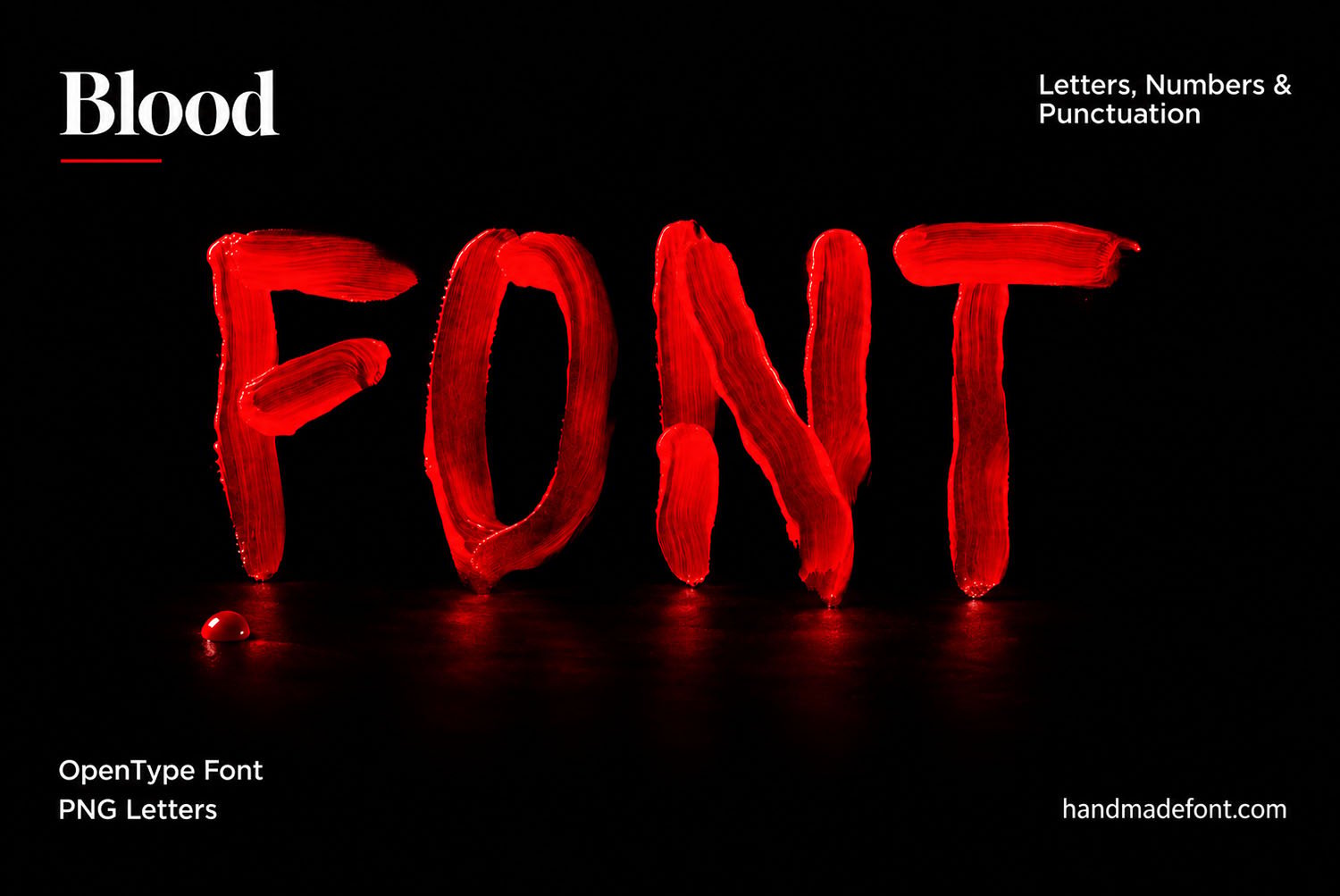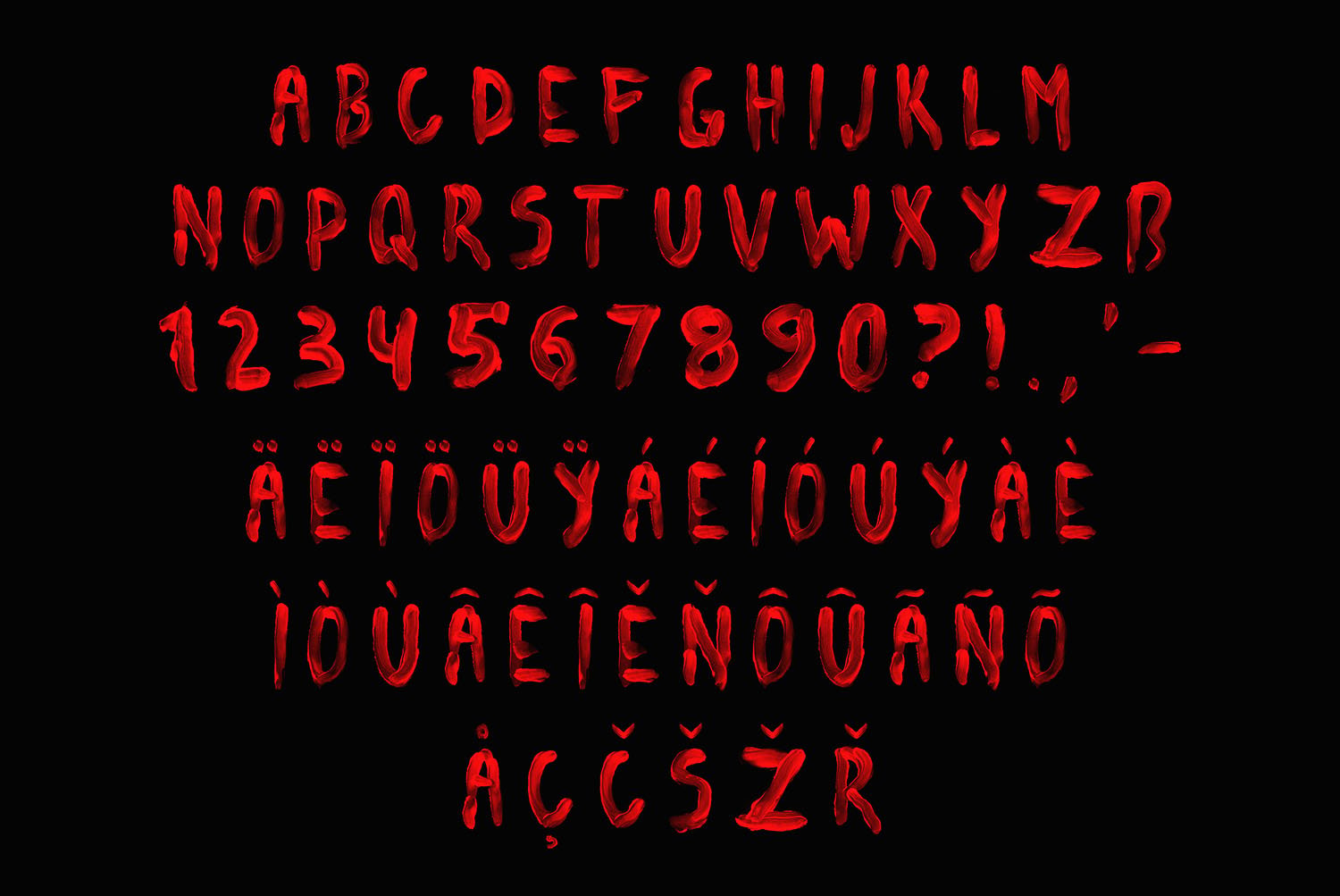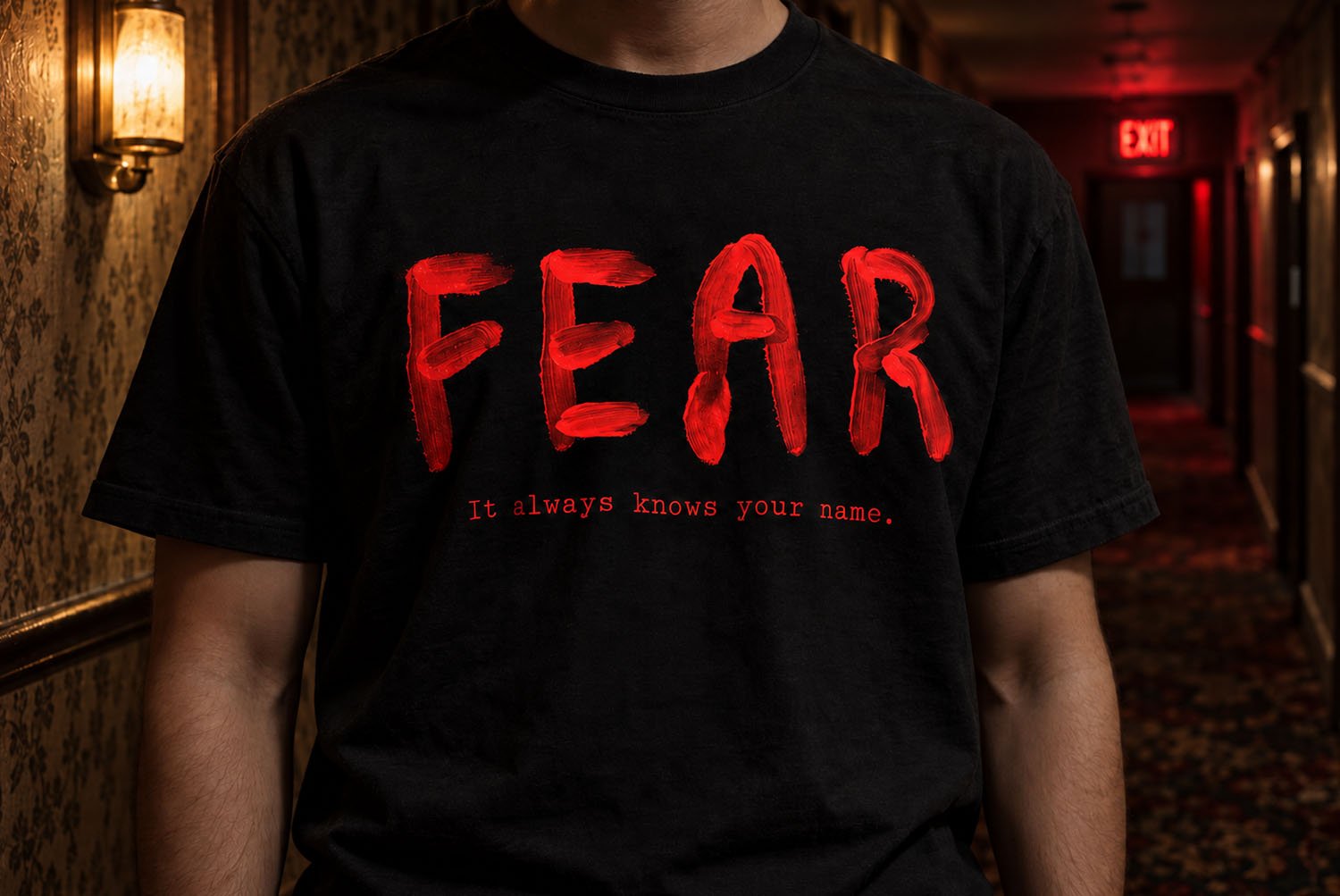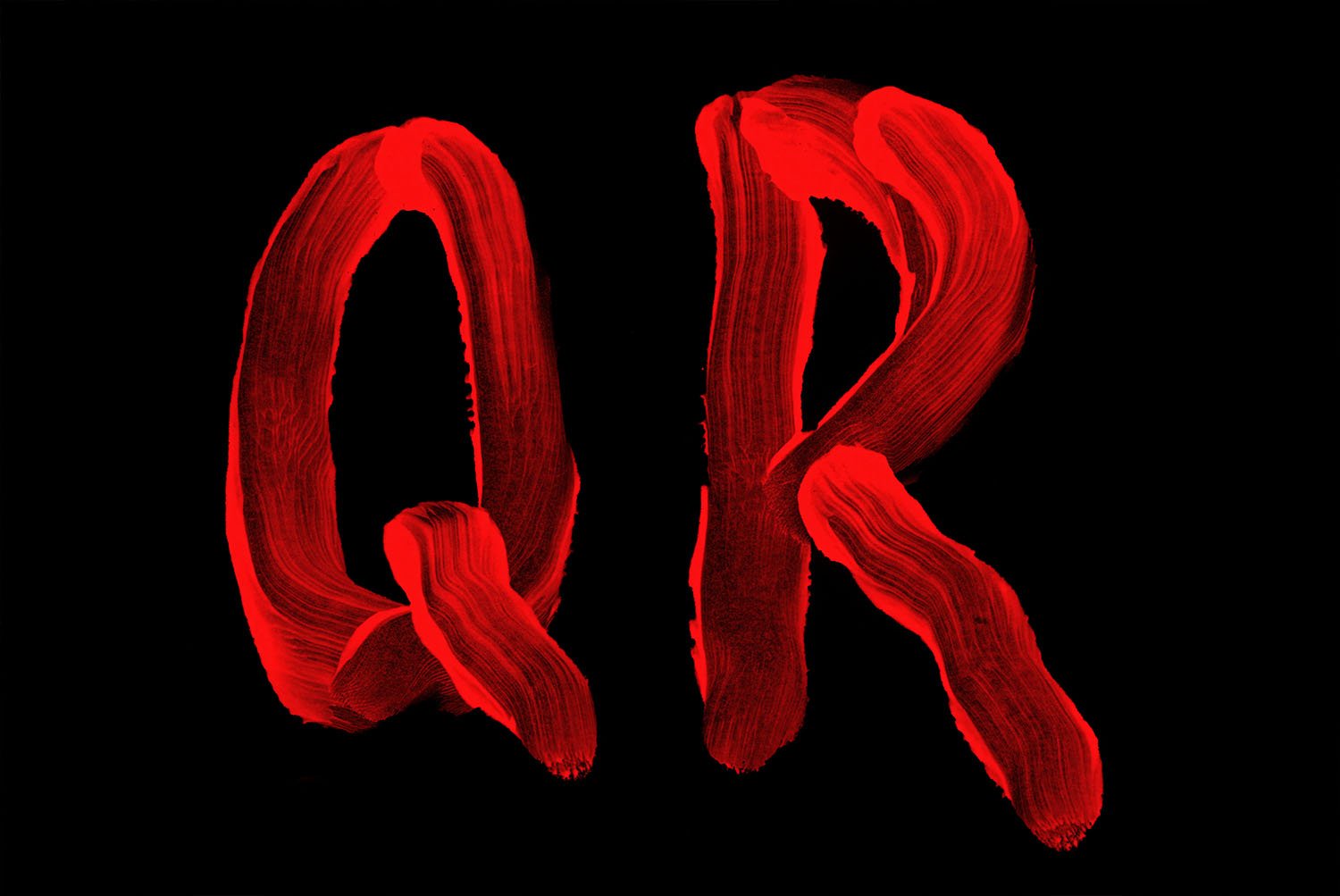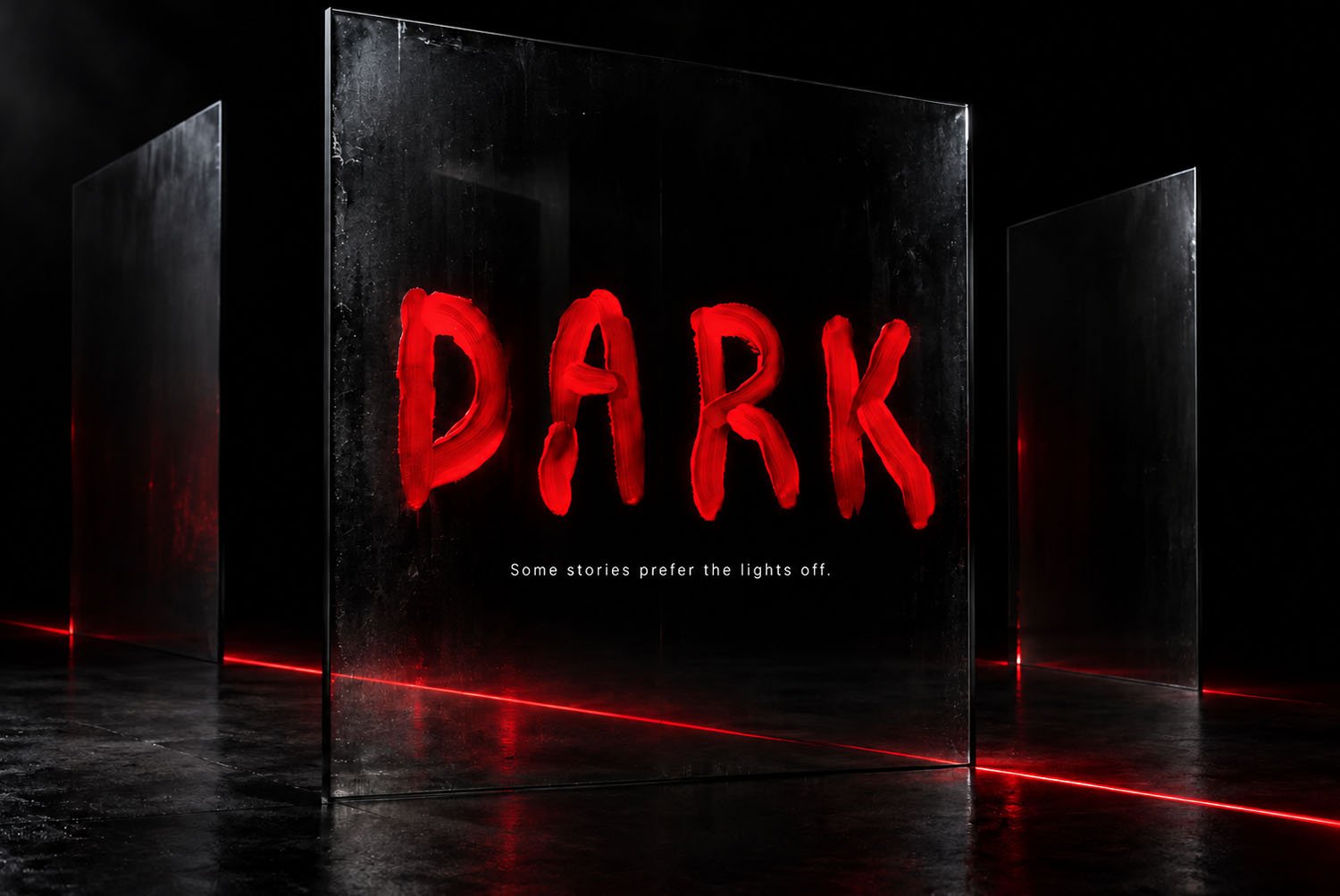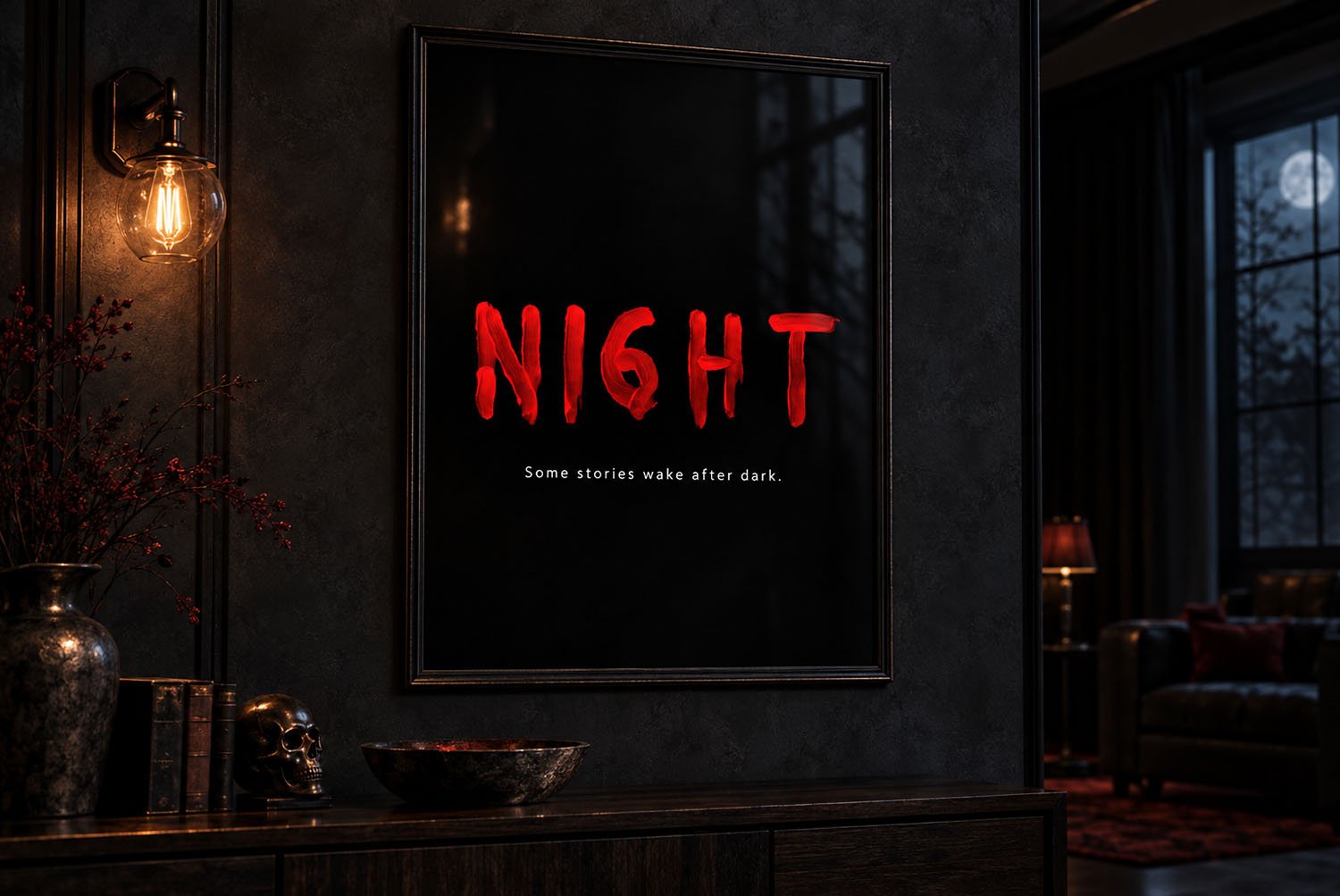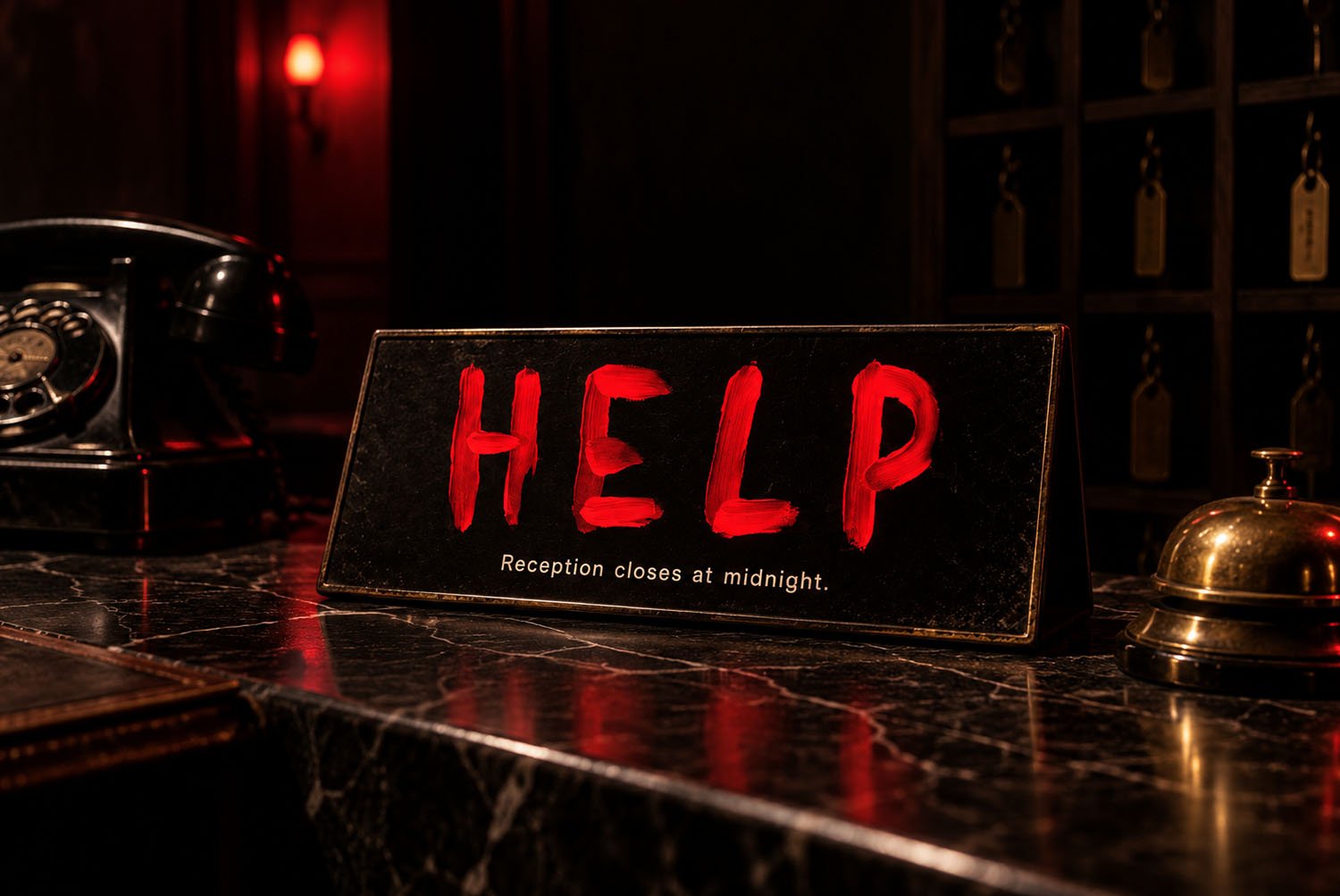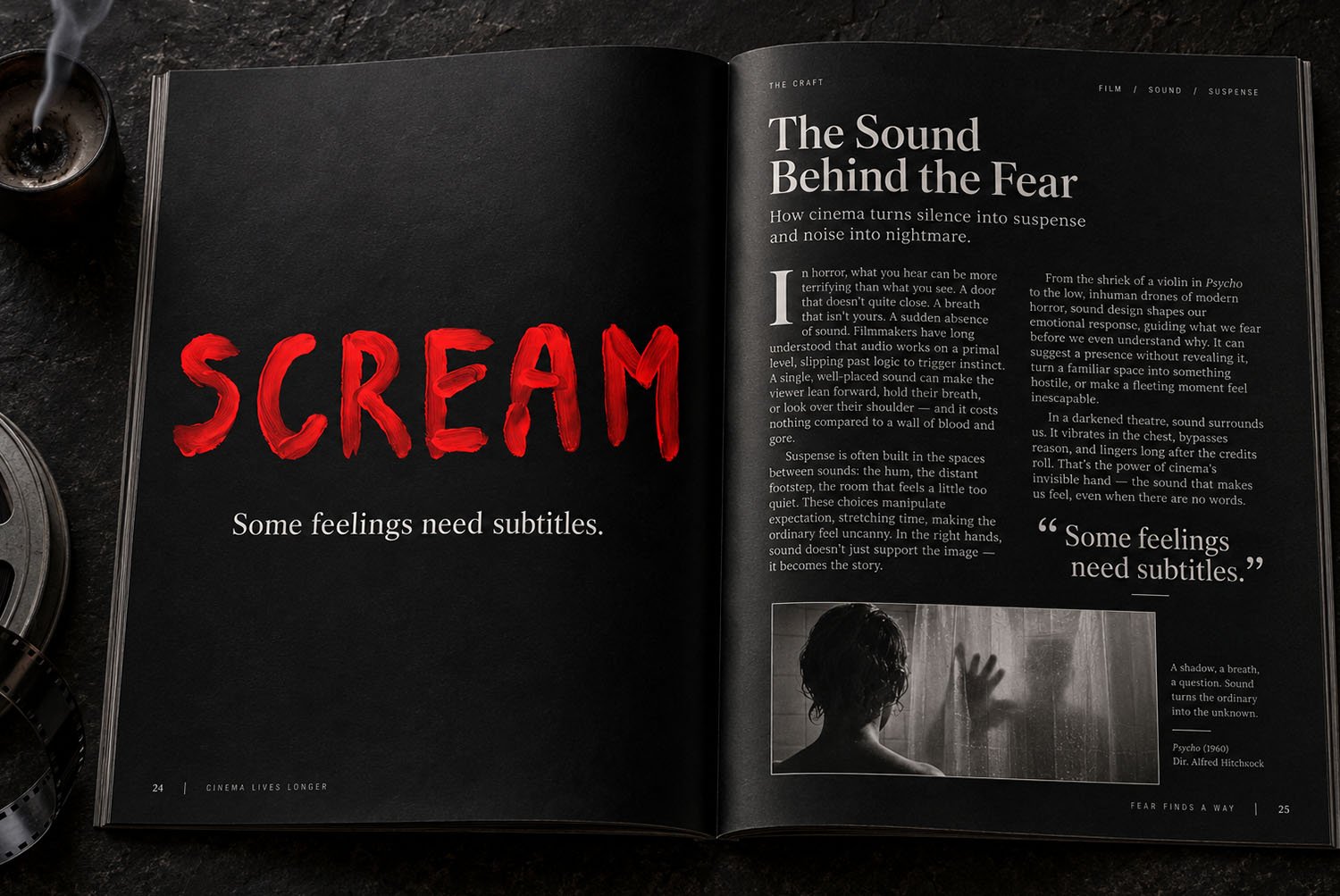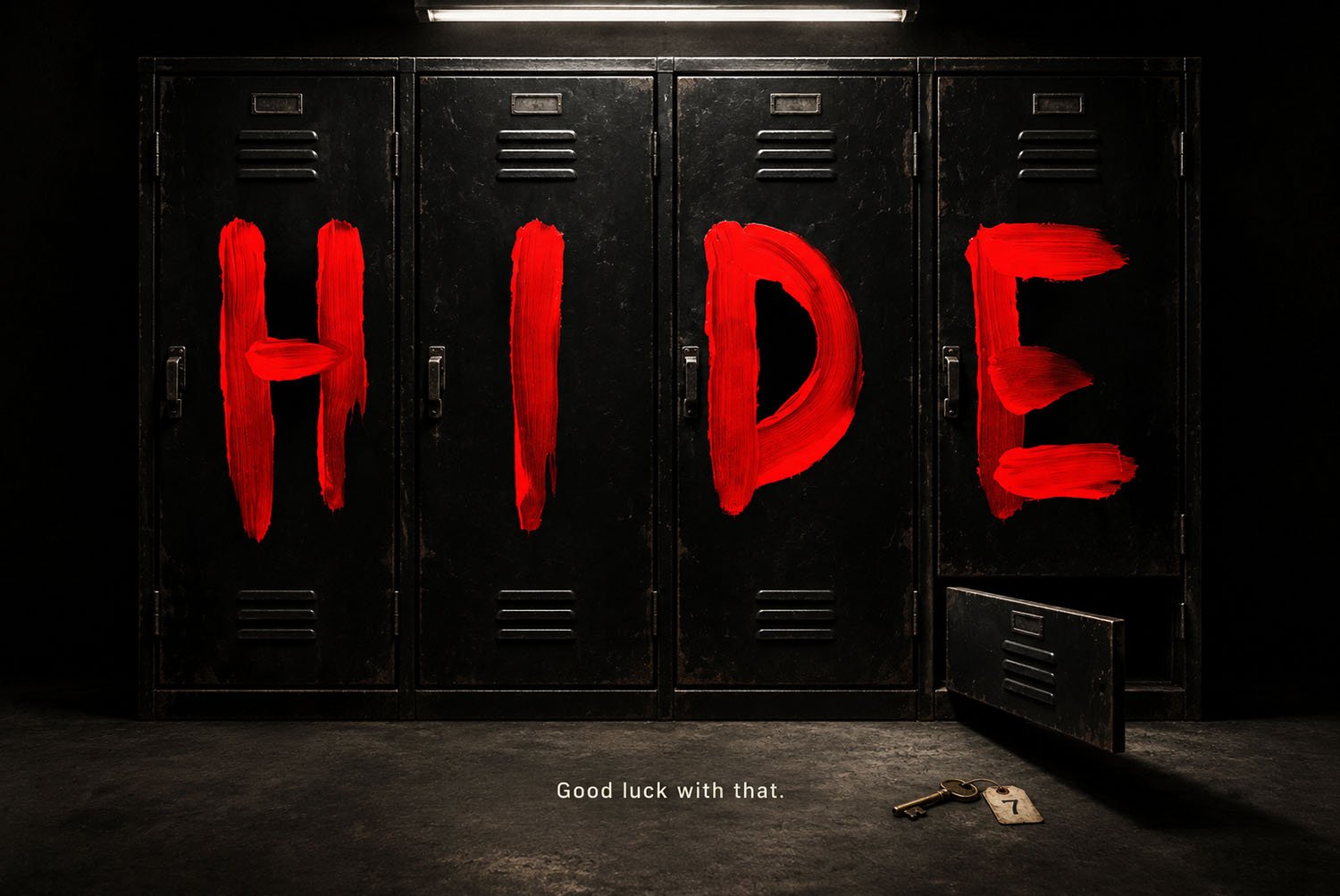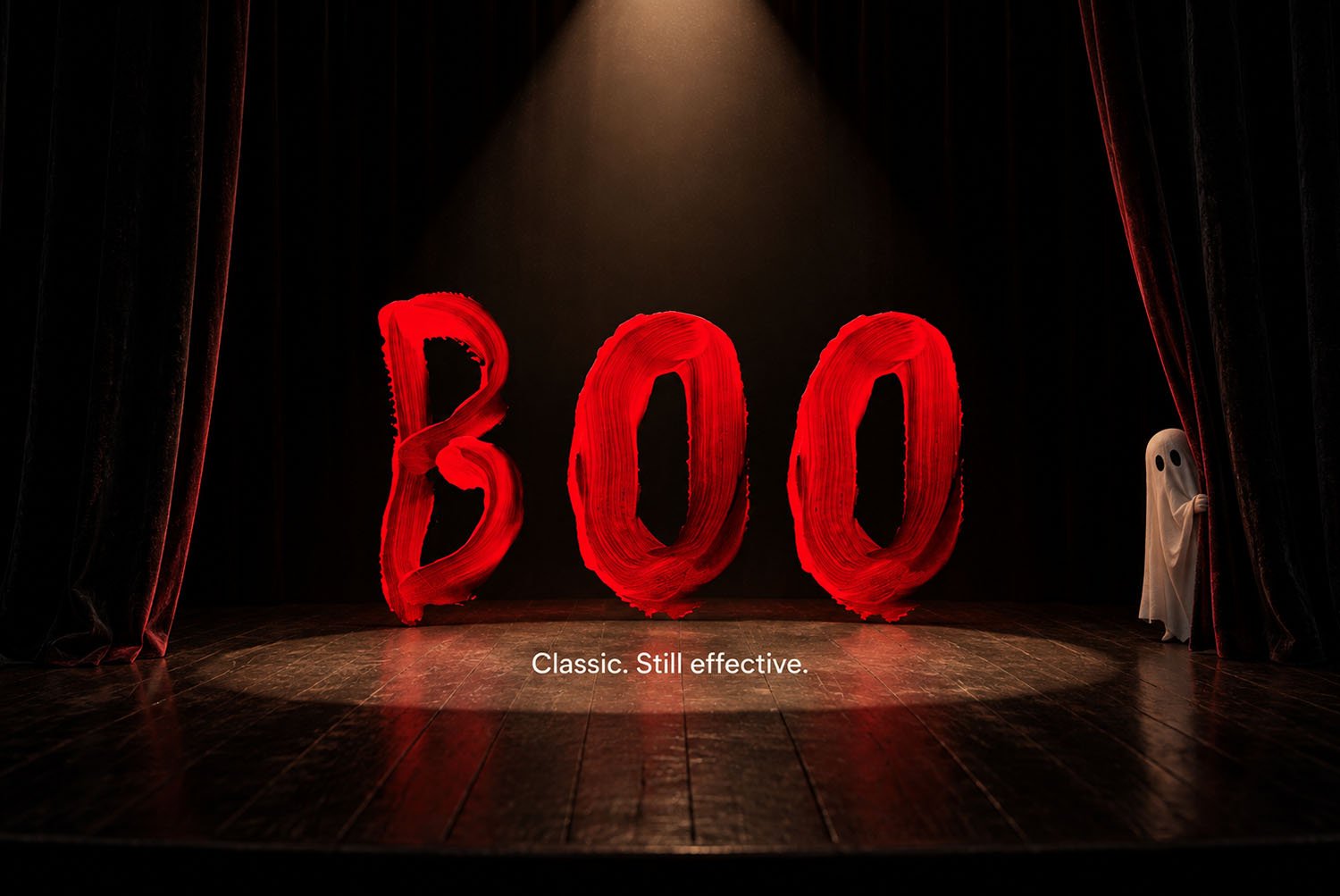
Blood Font
Blood Font is an incredibly expressive and terrifying typeface perfectly suited for creating dark thematic designs. Every letter, number, and punctuation mark looks as though it was carefully painted with realistic, thick strokes of bright red paint or fresh blood, capturing a visceral texture. The complete package provides users with a standard OTF file for traditional text typing. To ensure maximum creative flexibility in graphic editors, each character is additionally available as an individual PNG file on a fully transparent background. This font is an exceptional choice for scary horror posters, Halloween invitations, thriller covers, and truly sinister digital artwork.